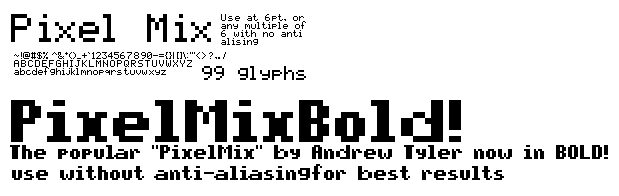
Pixelmix Bold, designed by Pixelmix, is a free blocky pixel font with the blunt impact of early screen graphics. Its squared letters use rigid steps, compact spacing, and almost no curves. Together, the forms look dense, mechanical, and deliberately low-resolution in spirit.
Grid-based icons and low-resolution game art share its hard, modular edges. That makes it useful for arcade posters, game interfaces, and technology merchandise. It belongs most clearly in retro gaming and computer themes.
Use at 6 pt or multiples of 6 pt with anti-aliasing disabled.